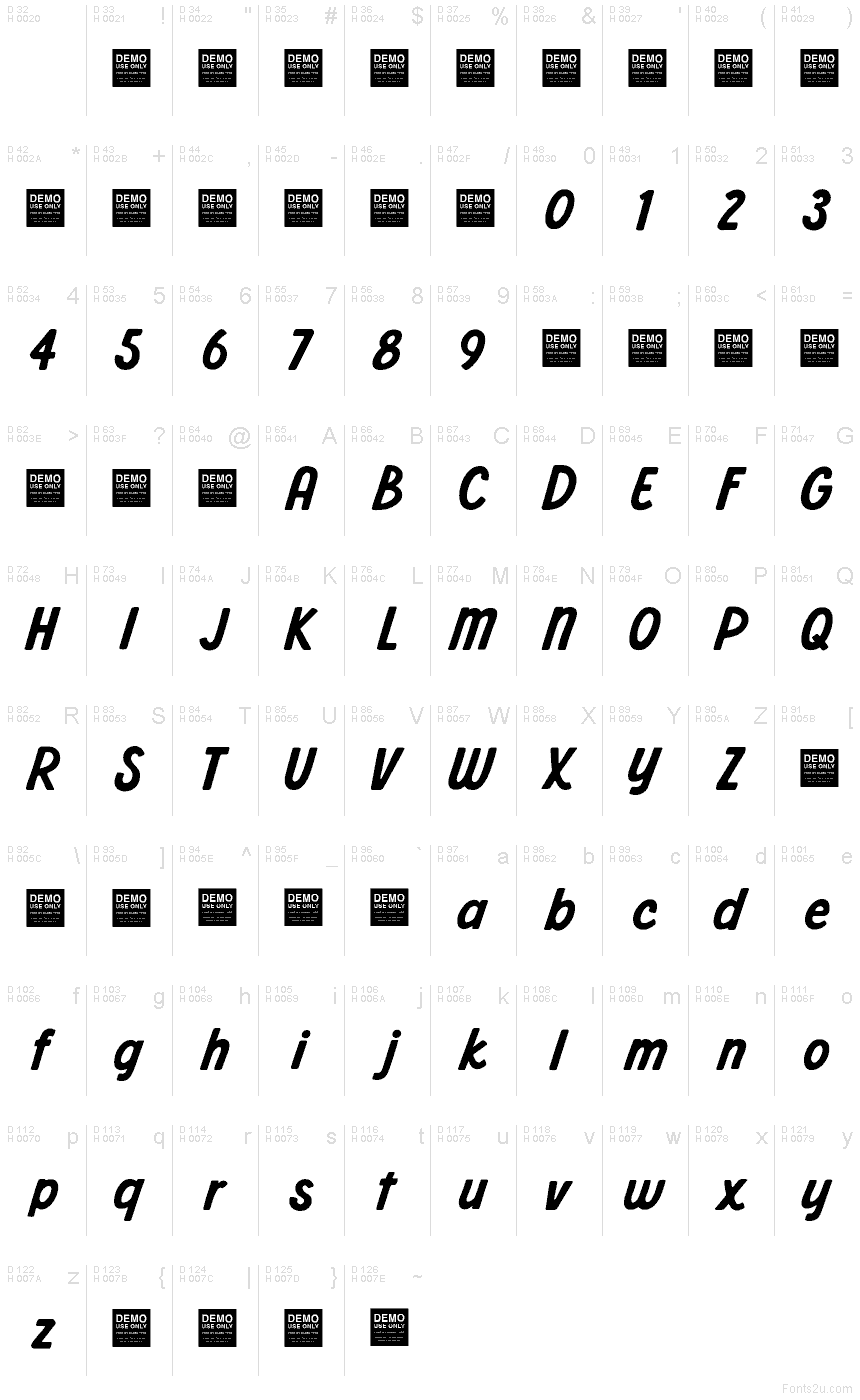
Super Duty
Super Duty font by BLKBK Fonts is a contemporary display font with an energetic flow and cohesive appearance. It exudes a dynamic, italic style which makes it suitable for a variety of projects.
This free display font is applicable for poster designs, website headers, advertising campaigns, product packaging, magazine covers, video intros, book design, illustration coloring/inking processes and typographic wallpapers.